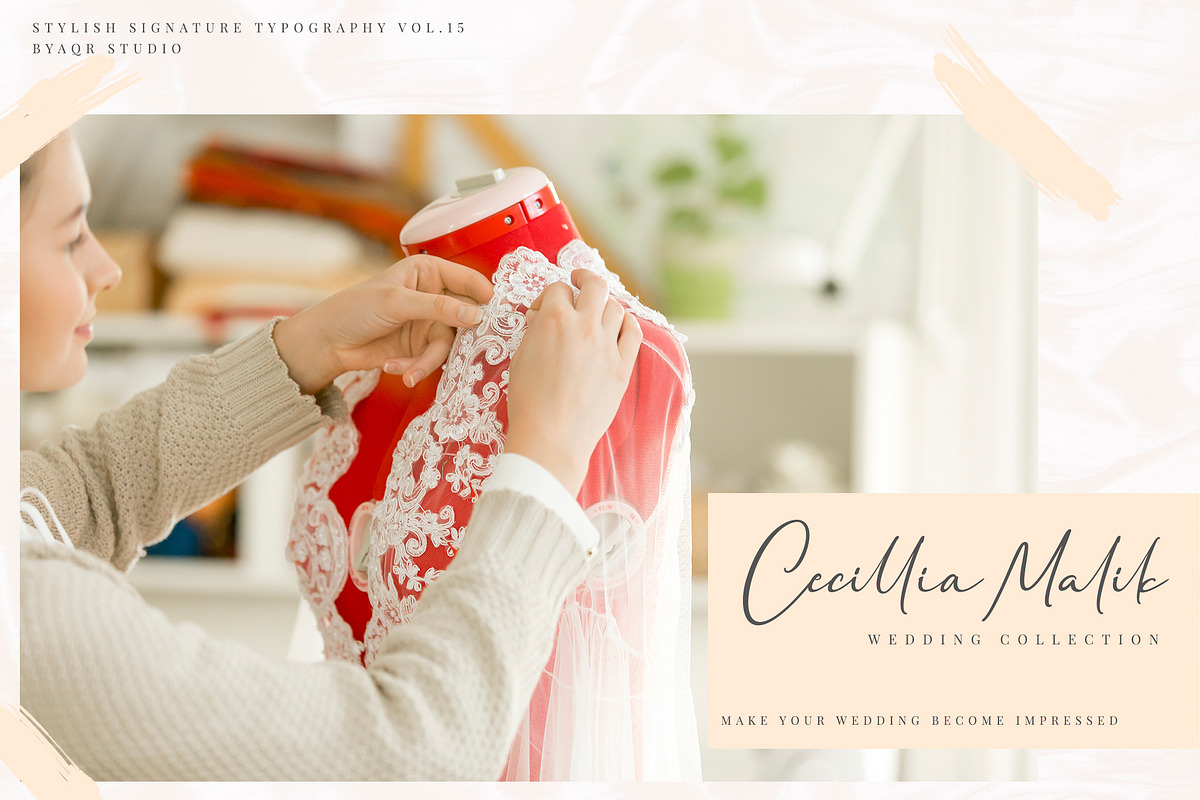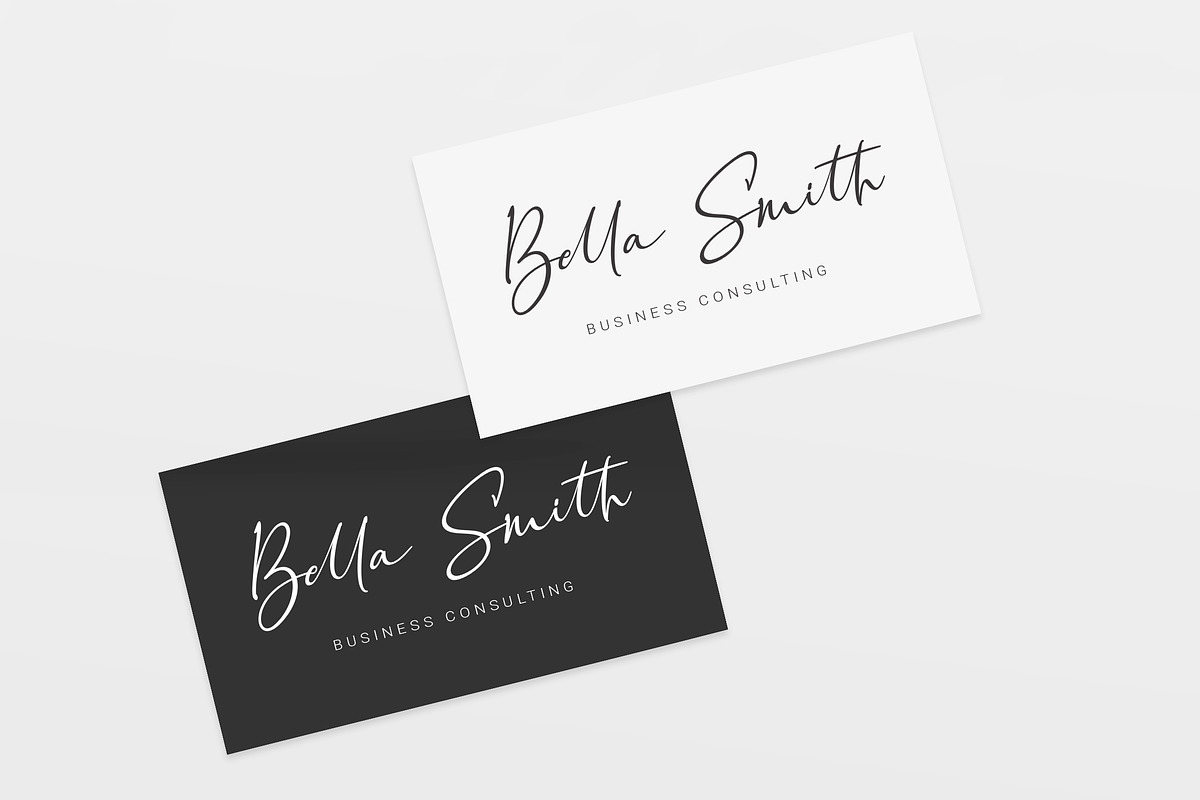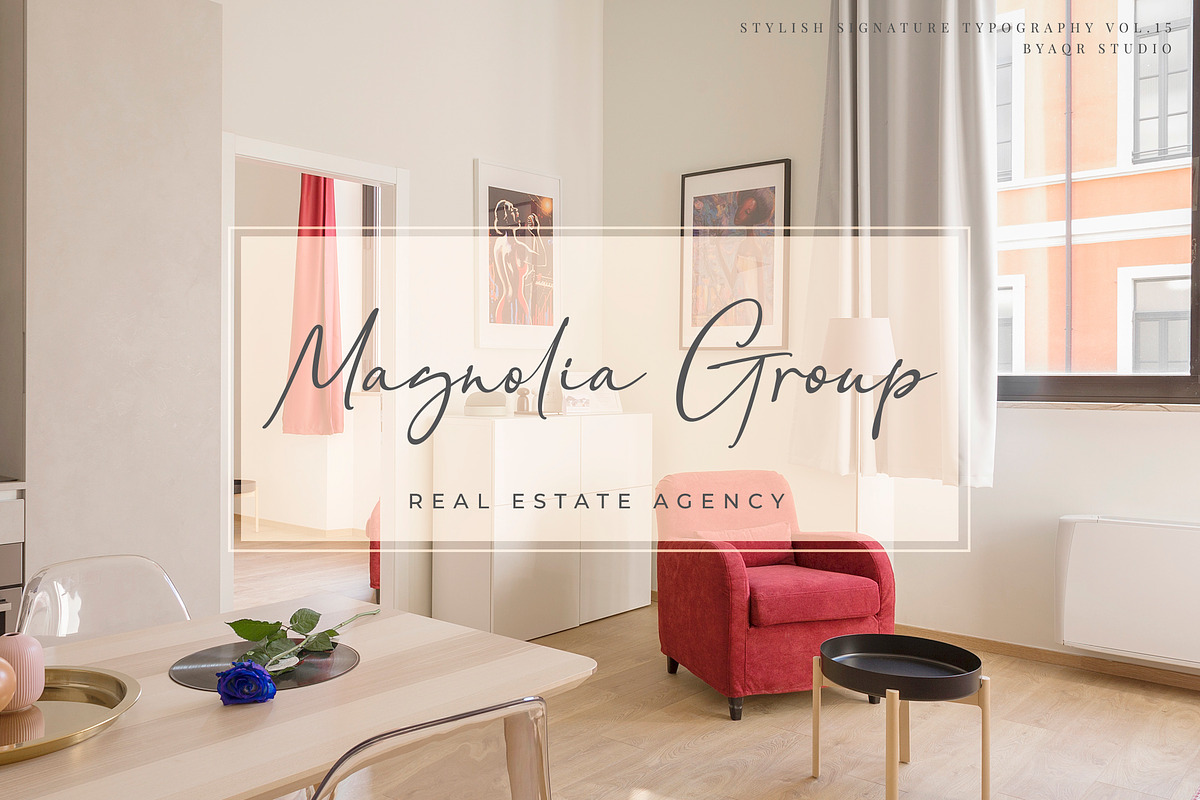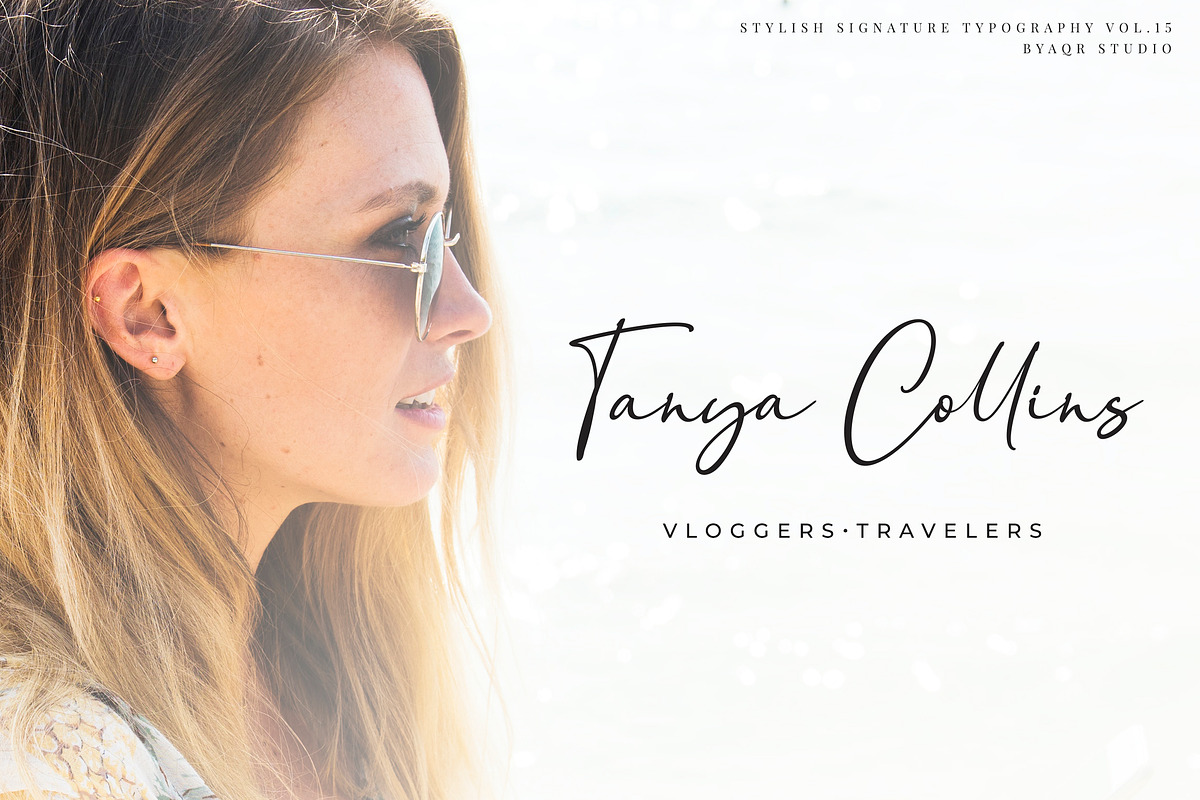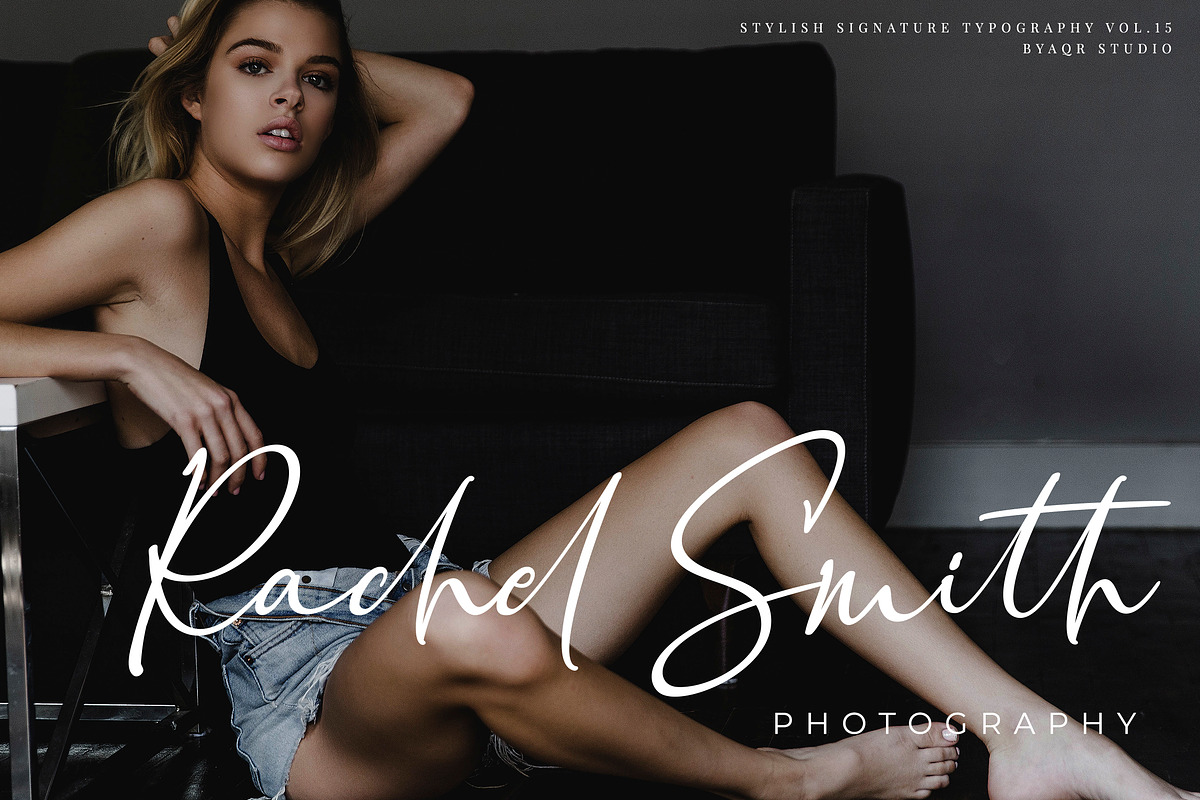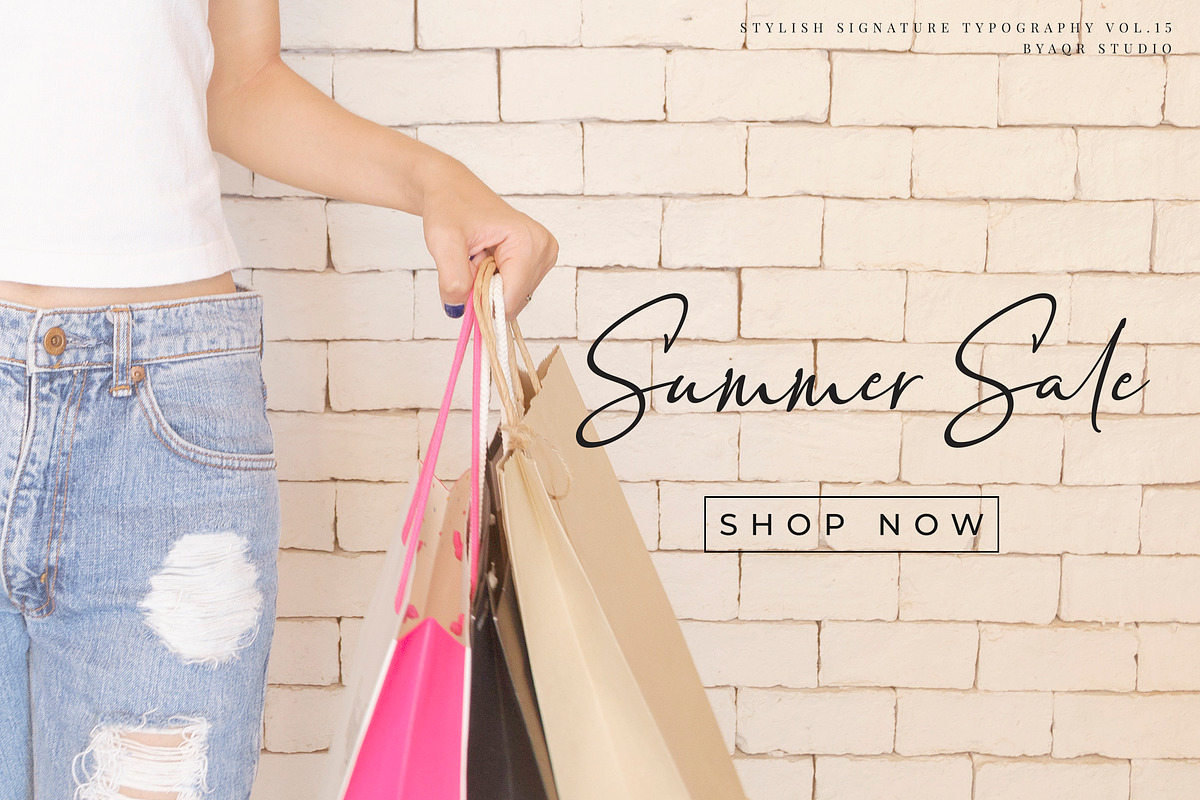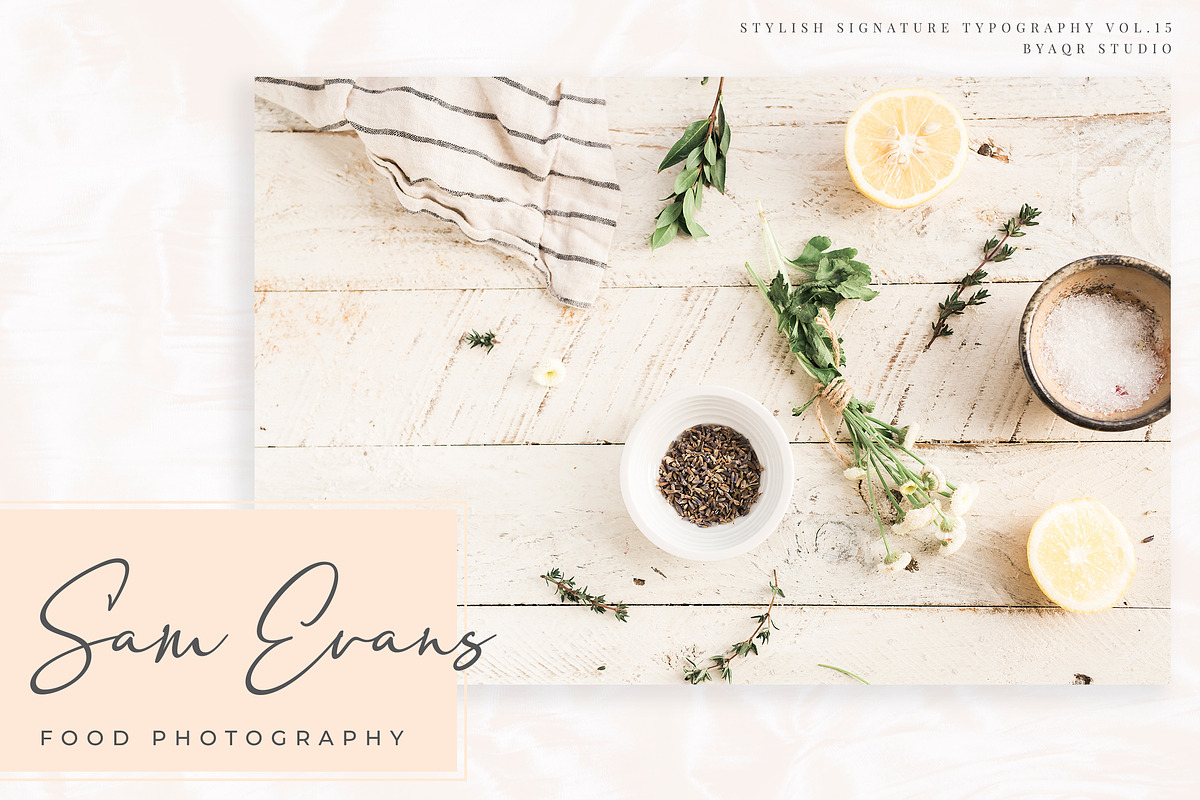
Sakage Signature Font
Introducing Sakaga Signature Font
I made this project a continuation of the same project before, because so many of the current signature design needs for that I decided to continue the font signature project.
Sakage signature looks so very natural, starting from the curve, the thickness and thinness of the letters and the connection between letters and other letters looks so beautiful.
Sakage Signature font comes with perfect ligatures:
ab ad ah ak al at att ath ast bb bl ch cl ck dd eb eh ek el et ett eth est ff fi ffi fh fl ft gh ght gt hl ht ib ih ik il it itt ith ill ob oh ok ol ot ott oll sb sh sk sl stt sll st tt th ub uh uk ul utt uh ull ut uth all cll ell
Sakage Signature also includes full set of uppercase and lowercase letters, alternates for lowercase, multilingual character, numerals, punctuation. The font has smooth wet ink texture, so would be perfect for all types of printing techniques, you can do embroidery, laser cut, gold foil, cutting sticker,cricut or silhoutte design and many more.
Basic Glyphs, Numerals, Symbol and punctuation
Multilingual Support ( ALL EUROPE LANGUANGE )
Alternates for lowercase
Sakage Signature Font by AQR Studio fits naturally into Branding, posters, packaging, typography.